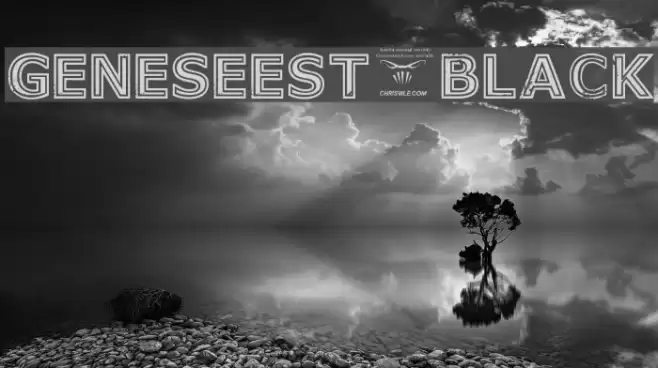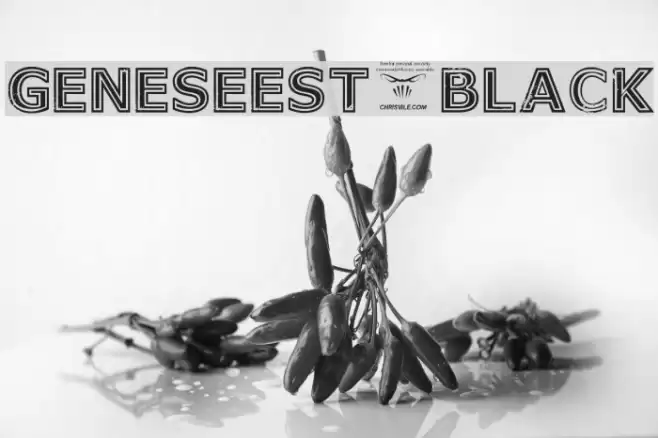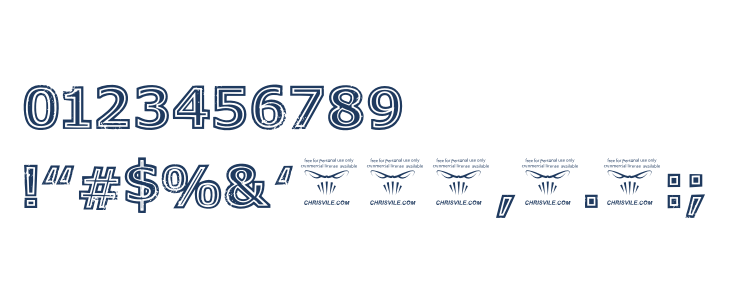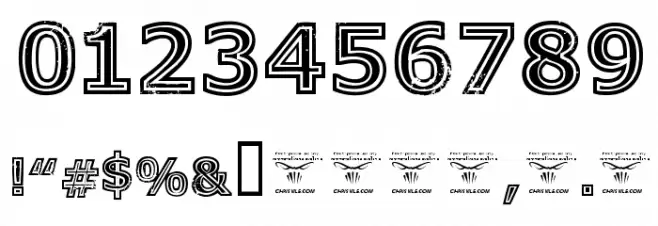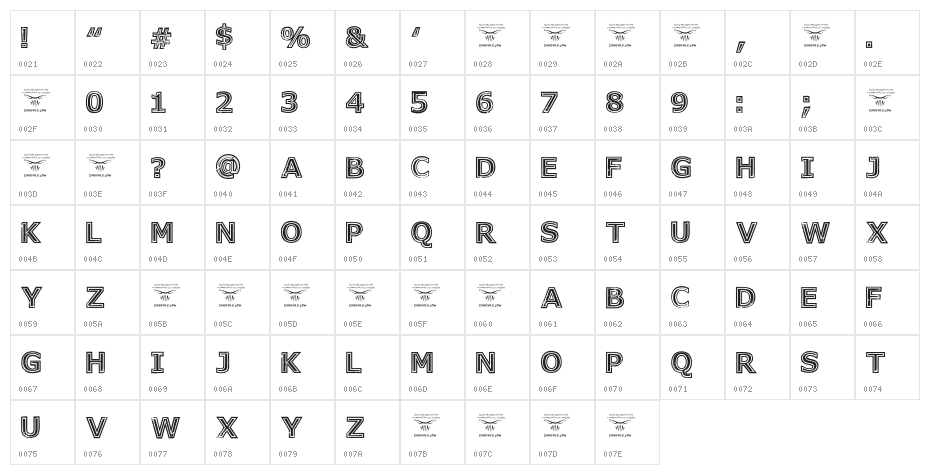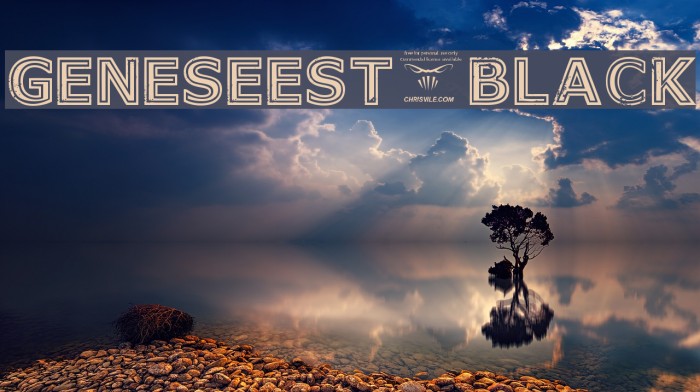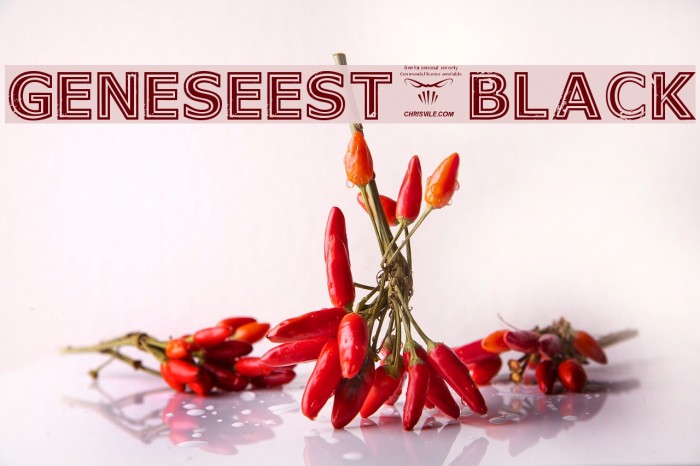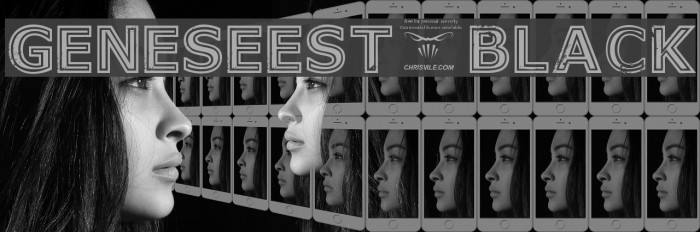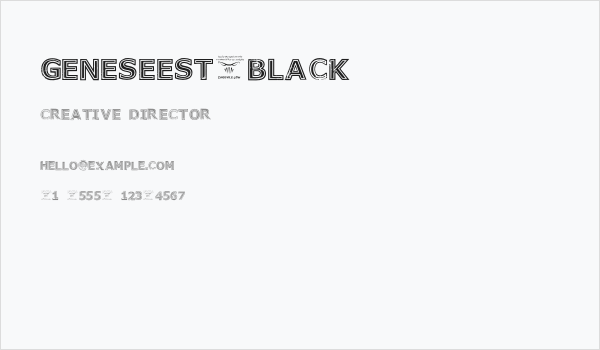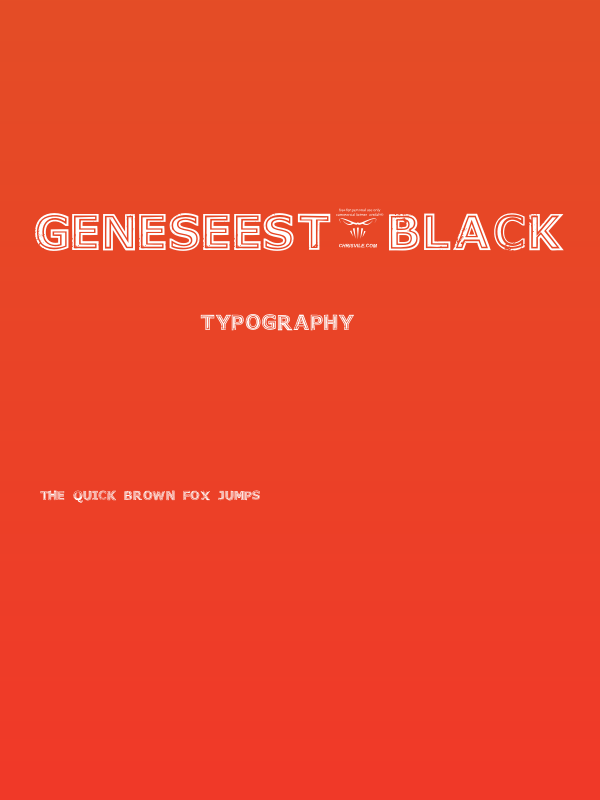
GeneseeSt-Black Font
GeneseeSt-Black Description
This font features a bold, distressed style with a strong presence. The characters are outlined with a rough, textured effect that gives them a vintage, worn appearance. The uppercase letters are prominent and commanding, making them ideal for attention-grabbing designs. The numerals and special characters maintain the same distressed aesthetic, ensuring consistency across all elements. This font's unique style is perfect for projects that require a rugged, industrial look.
A bold, distressed font with a vintage, rugged appearance from Uncategorized fonts.
- Proposed Projects: Ideal for posters, branding, logos, and any design needing a vintage or industrial feel.
- Overall Style: Vintage